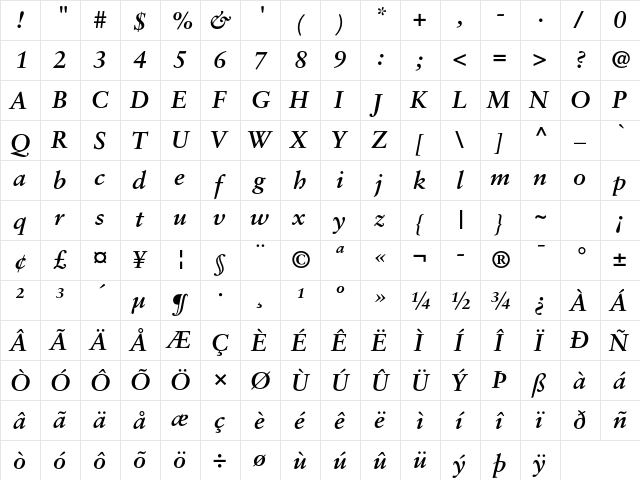
Korinthia Bold Italic
| Foundry | Semata |
| Designer | Jan Tschichold |
Design Context for Korinthia Typeface
Korinthia takes a measured approach to typography — its balanced proportions and neutral character make it a reliable workhorse for both digital and print work. The dynamic lean of this cut emphasises speed and emphasis in any layout. Its bold stroke weight gives it real presence on the page.
Pro Tip: Use Korinthia for emphasis, pull quotes, and subheadings where its slanted energy can add rhythm to the layout.